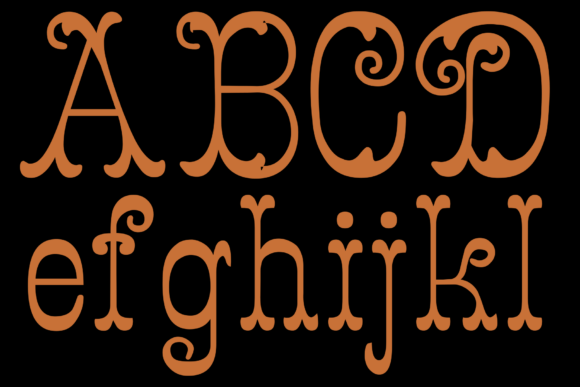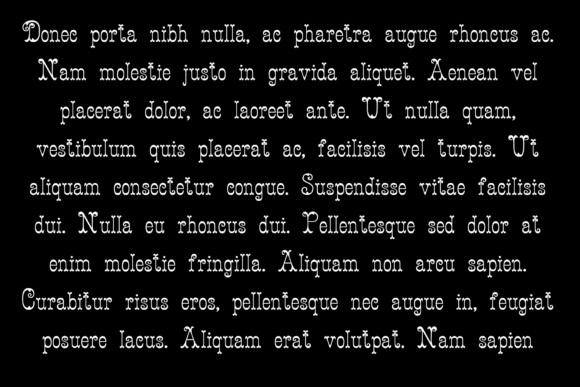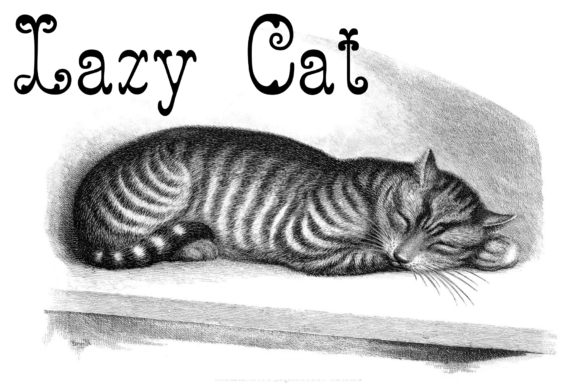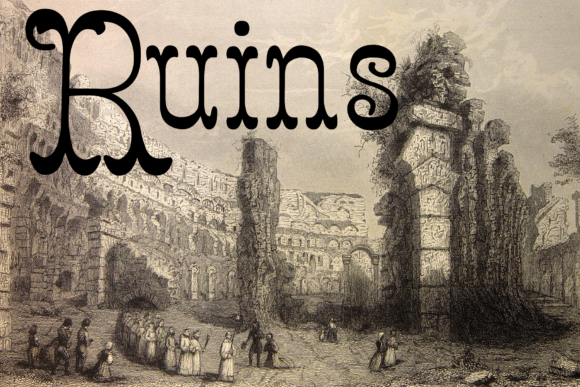
Introducing Costado Font: A Timeless Classical Wood-Type Font
Are you a designer or crafter looking for a font that adds a touch of history and sophistication to your designs? Look no further than Costado Font, a classical wood-type font that offers two elegant styles. Inspired by traditional woodblock printing, Costado Font features vintage letterforms that exude a timeless and sturdy appearance, perfect for designs that require a sense of nostalgia and refinement.
The Story Behind Costado Font
Costado Font is a carefully crafted font that draws inspiration from the traditional woodblock printing techniques of the past. The font’s design is rooted in the classic wood-type fonts that were once used in vintage printing, but with a modern twist. The result is a font that is both nostalgic and contemporary, making it perfect for designers and crafters who want to add a touch of history to their designs.
Elegant and Versatile Design
Costado Font features elegant, vintage letterforms that are characterized by their sturdy and timeless appearance. The font’s design is marked by clean lines, classic proportions, and a sense of sophistication that is hard to find in modern fonts. With two styles to choose from, designers and crafters can use Costado Font to create a wide range of designs, from elegant wedding invitations to rustic signage.
Key Features of Costado Font
- Classical wood-type font: Costado Font is inspired by traditional woodblock printing techniques, giving it a unique and timeless appearance.
- Two elegant styles: The font offers two styles, allowing designers and crafters to choose the one that best suits their design needs.
- Vintage letterforms: Costado Font features elegant, vintage letterforms that are characterized by their sturdy and timeless appearance.
- Timeless and sturdy appearance: The font’s design is marked by clean lines, classic proportions, and a sense of sophistication that is hard to find in modern fonts.
Costado Font is perfect for designers and crafters who want to add a touch of history and sophistication to their designs. Whether you’re creating wedding invitations, signage, or packaging, Costado Font is a versatile font that can be used in a wide range of design projects. The font’s elegant and vintage appearance makes it ideal for designs that require a sense of nostalgia and refinement.
Tips for Using Costado Font
- Pair with modern fonts: Costado Font can be paired with modern fonts to create a striking contrast between old and new.
- Use for headlines and titles: The font’s elegant and vintage appearance makes it perfect for headlines and titles.
- Add a touch of history: Use Costado Font to add a touch of history and sophistication to your designs.
Costado Font is a timeless classical wood-type font that offers two elegant styles. With its vintage letterforms and sturdy appearance, it’s perfect for designers and crafters who want to add a touch of history and sophistication to their designs. Whether you’re creating wedding invitations, signage, or packaging, Costado Font is a versatile font that can be used in a wide range of design projects.